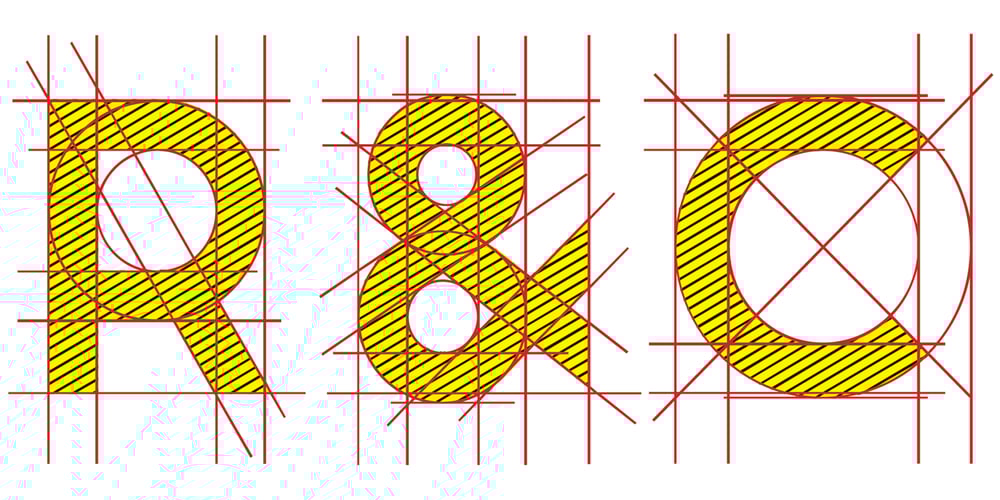
R&C Font Family was designed by Jean Boyault and published by JBFoundry. R&C contains 8 styles and family package options. R&C is totally drawn with a ruler and a pair of compasses. It is advisable for technical drawing. By stacking its eight styles, all combinations are possible.